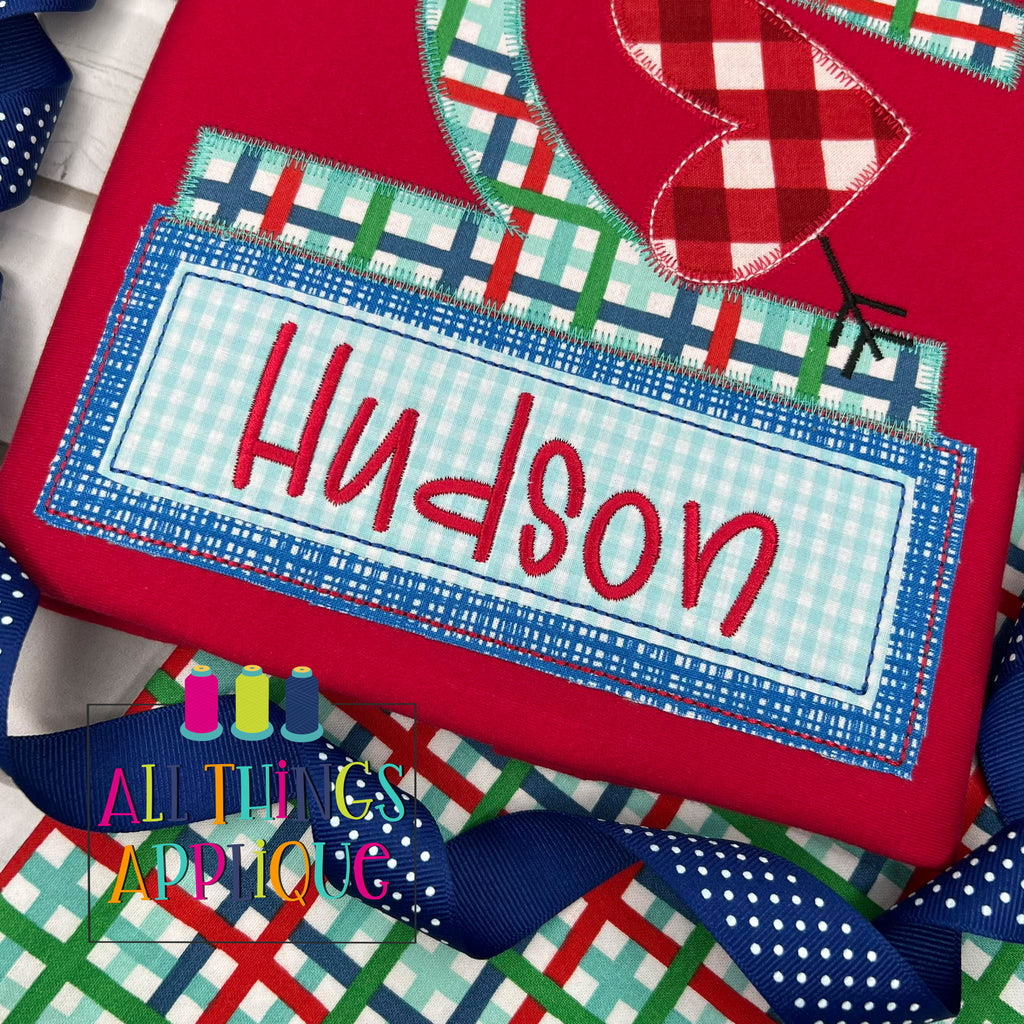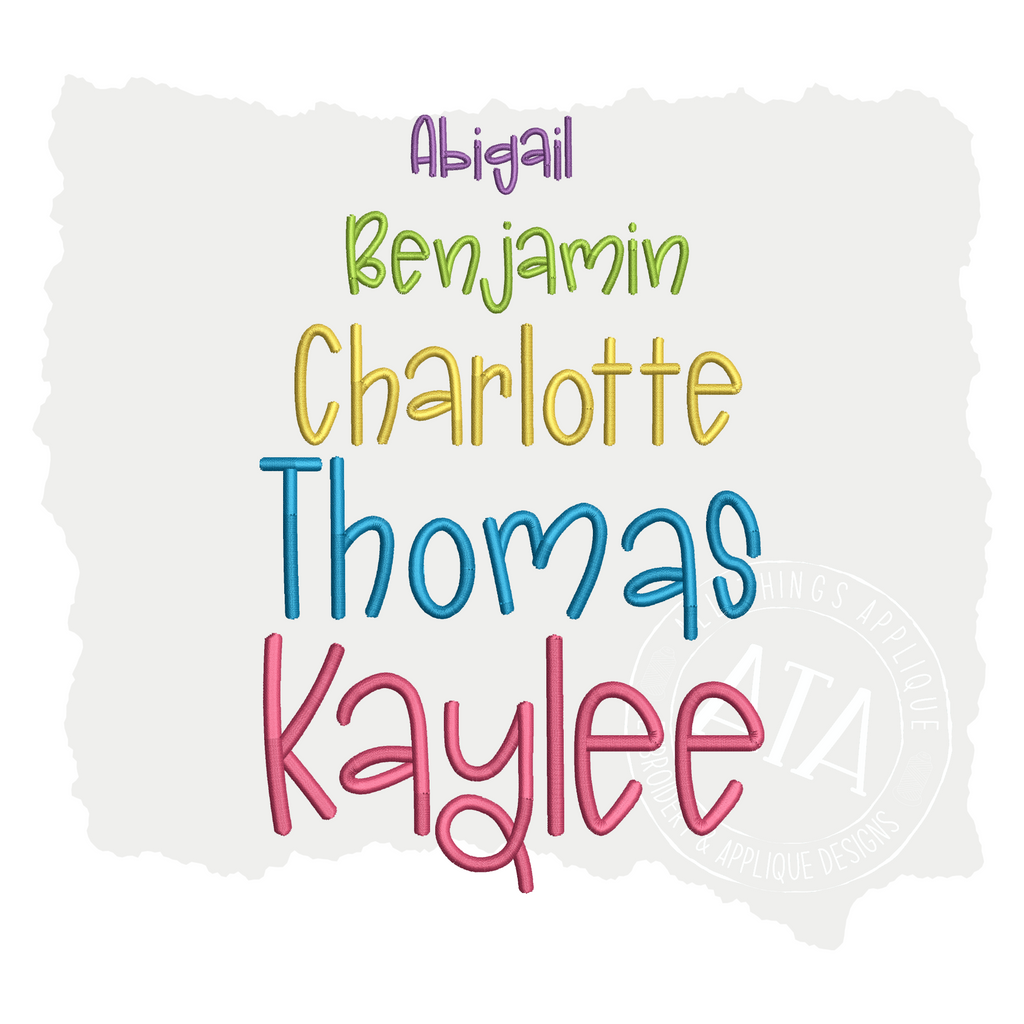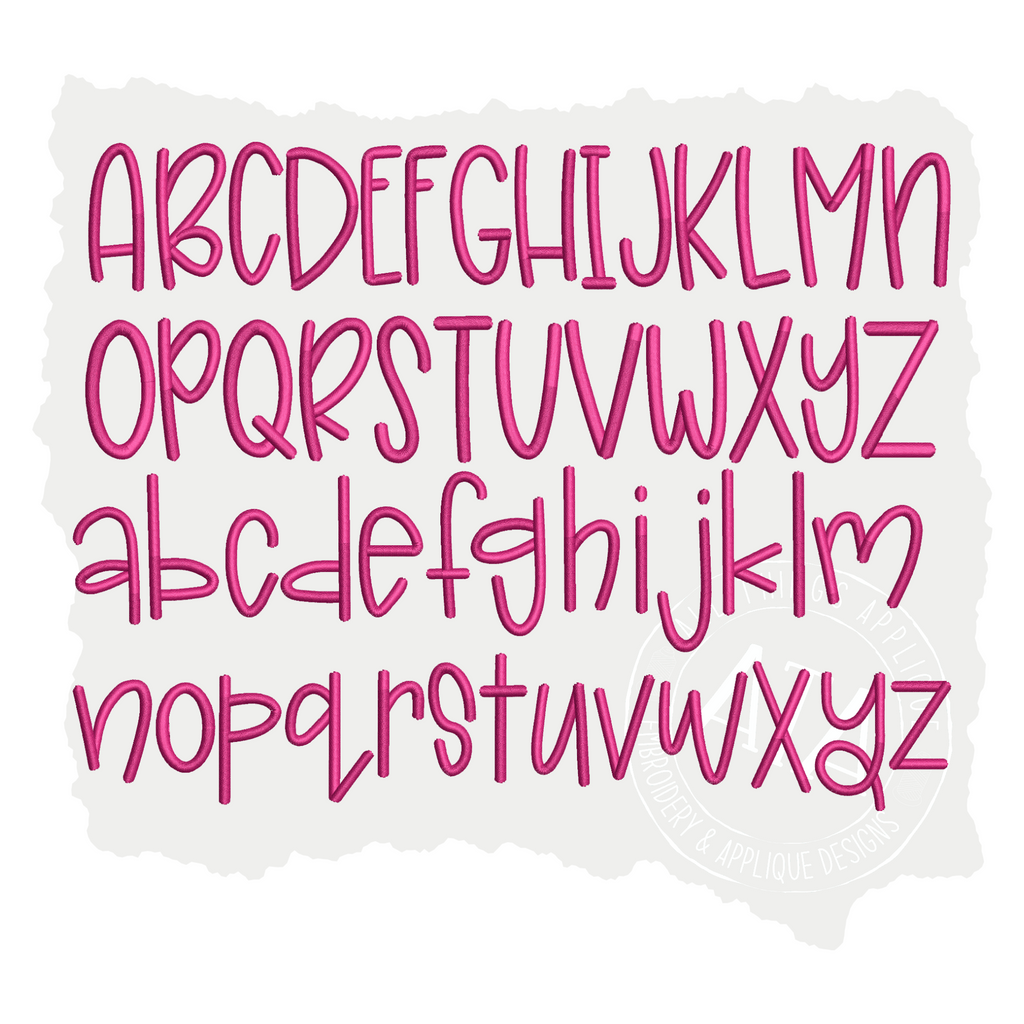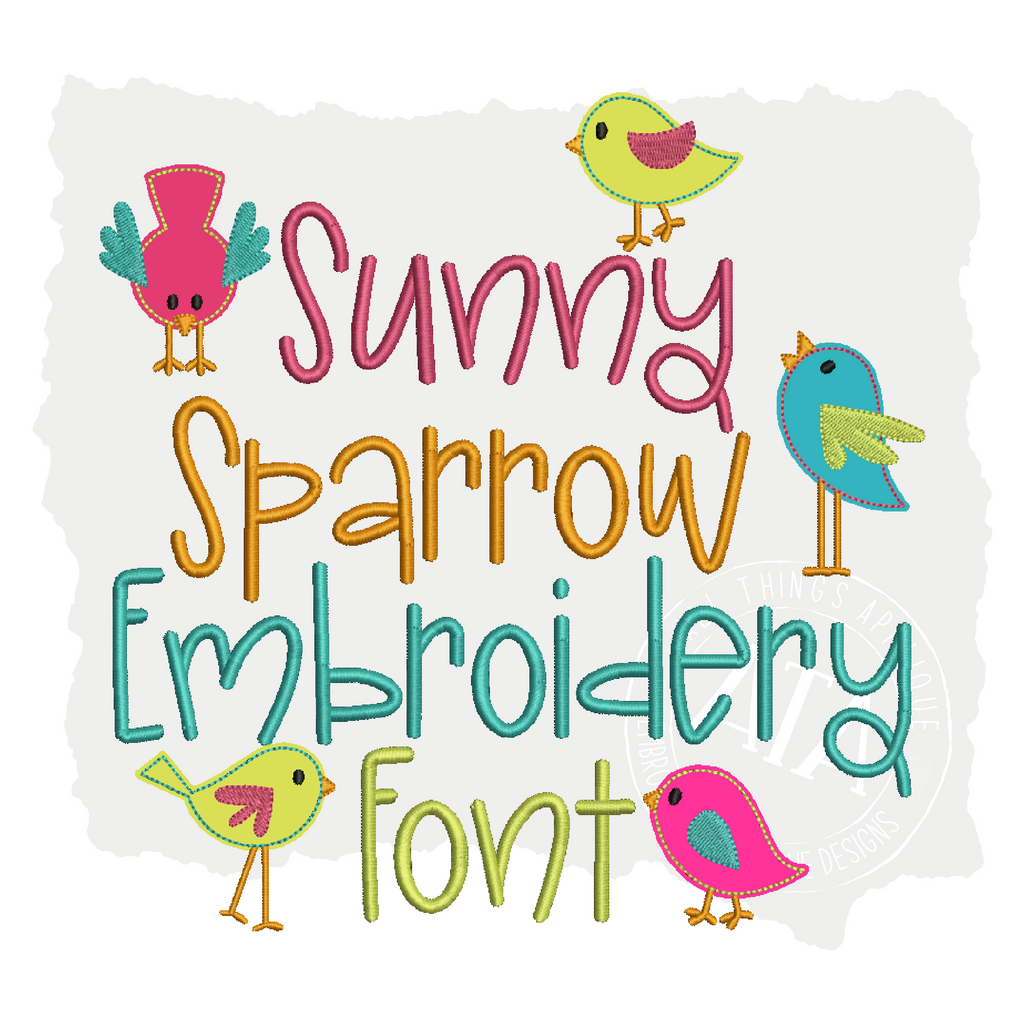
Sunny Sparrow Embroidery Font
About the Sunny Sparrow Embroidery Font
The Sunny Sparrow Embroidery Font is a Satin Stitch Embroidery Font created/digitized in 2023 by All Things Applique for use on your embroidery machine.